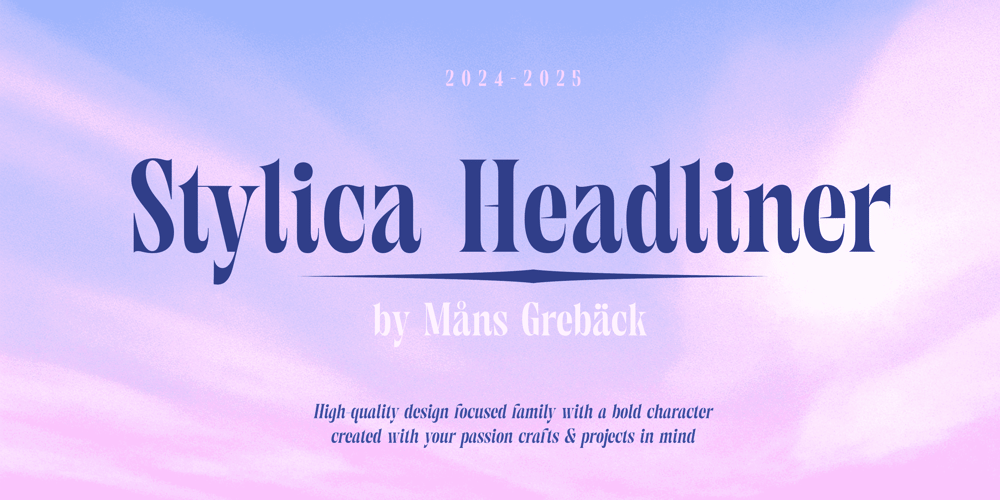
Stylica Headliner
Stylica Headliner font
Stylica Headliner Font Family was designed by Måns Grebäck and published by Mans Greback. Stylica Headliner contains 2 styles and family package options. Stylica Headliner is a bold and commanding serif font designed to make a strong impact. Its heavy weight and sharp edges give it a confident, authoritative presence, ideal for large-scale applications like titles, posters, and display headlines. With a modern take on classic serif elements, it combines precision and style, making it perfect for designs that need to stand out.The sharpness of the characters, balanced with wide letterforms, ensures maximum readability even at larger sizes, while still maintaining a striking and dynamic aesthetic. Its boldness is tempered with fine detailing, creating a sophisticated yet robust appearance, suited for both contemporary and timeless designs.The font is built with advanced OpenType functionality and guaranteed top-notch quality, containing stylistic and contextual alternates, ligatures, and more automatic and manual features; all to give you full control and customizability. It has extensive lingual support, covering all Latin-based languages, from North Europa to South Africa, from America to South-East Asia. It contains all characters and symbols you’ll ever need, including all punctuation and numbers.Designed by Måns Grebäck, Stylica Headliner is crafted for those seeking a heavyweight serif with a bold statement.